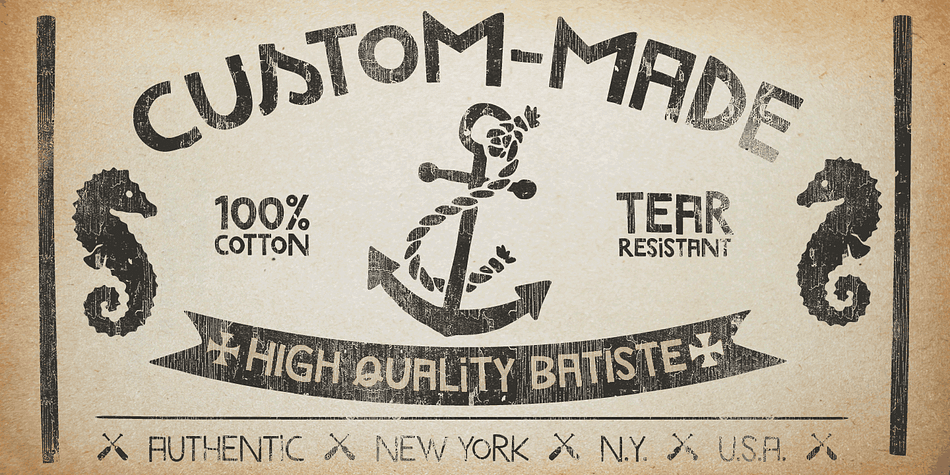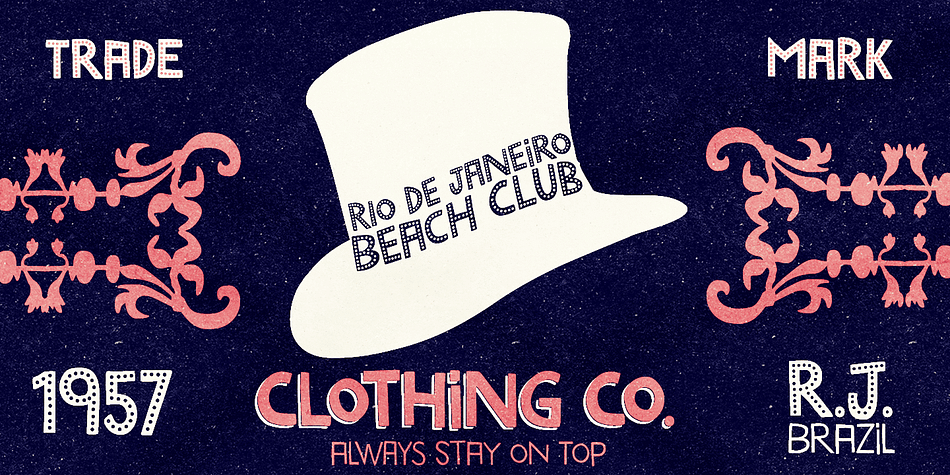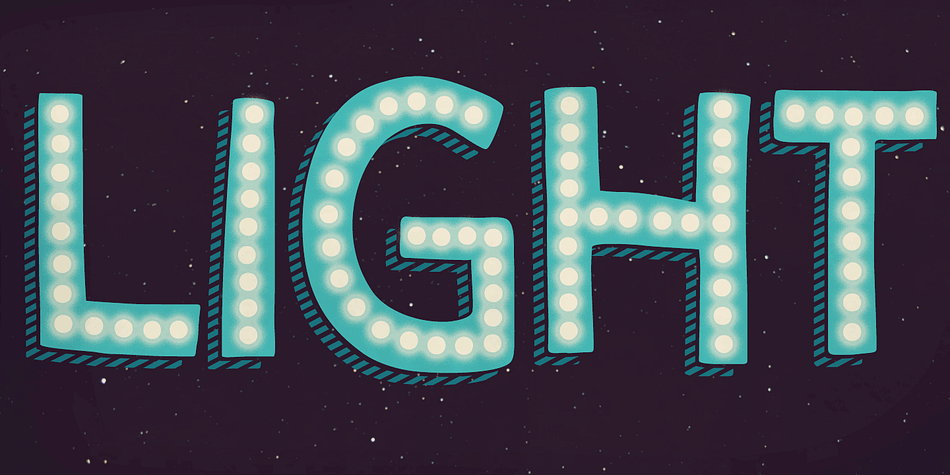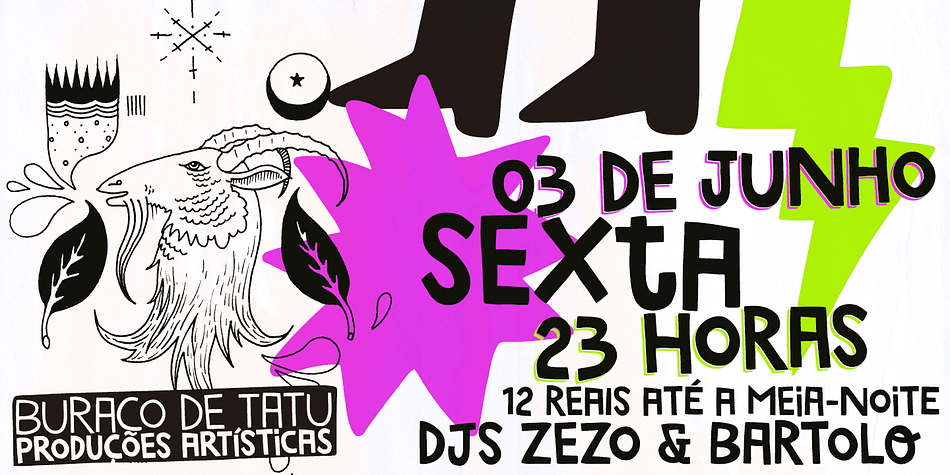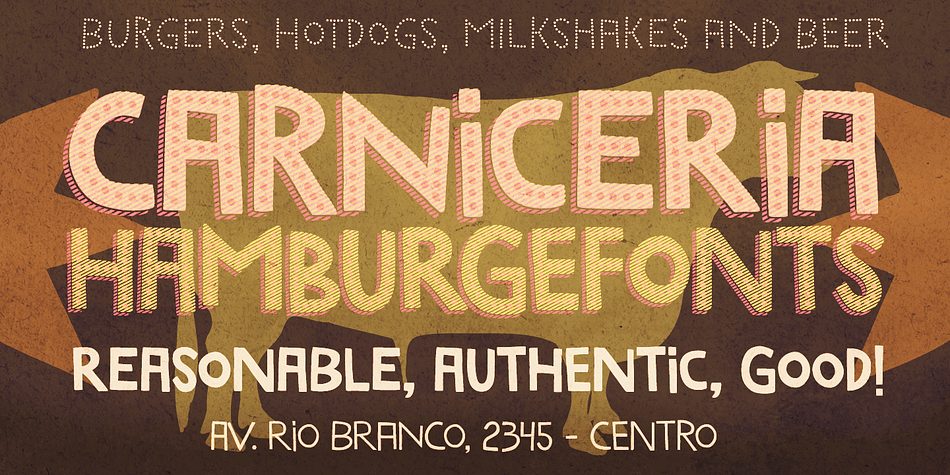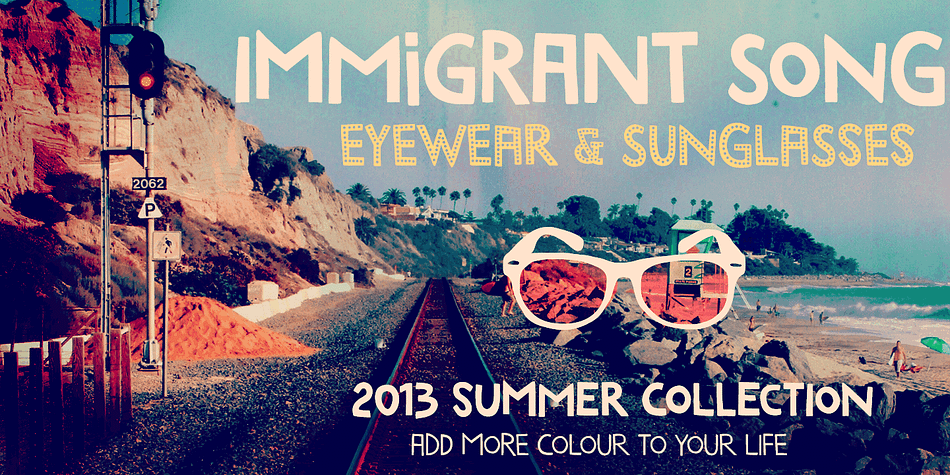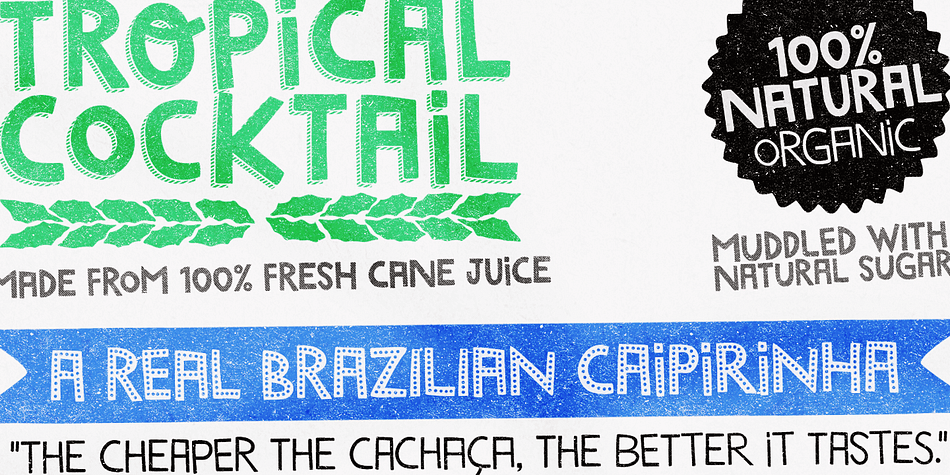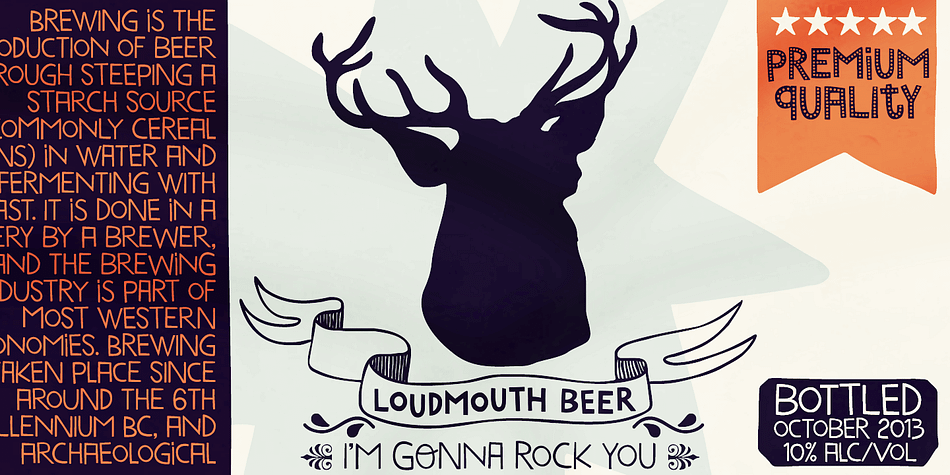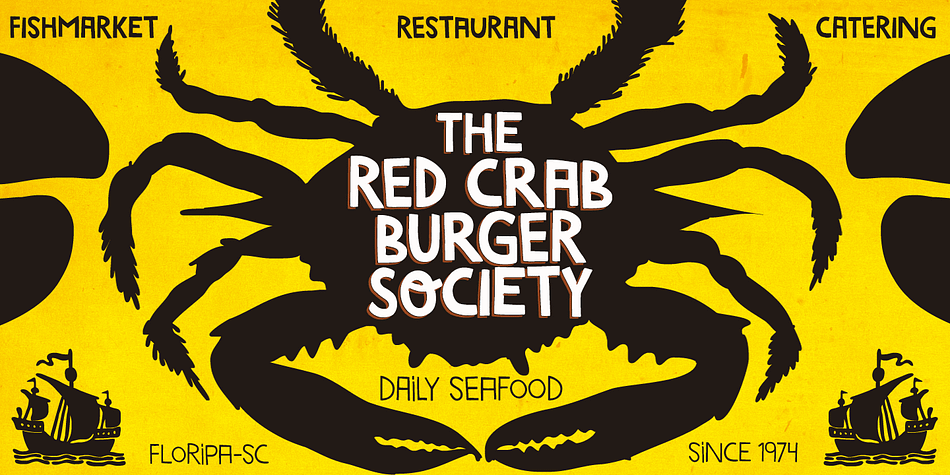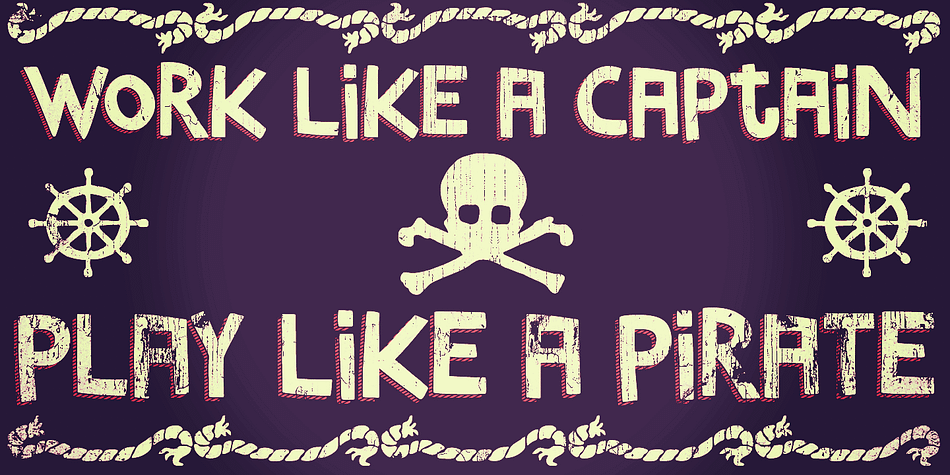
Marujo is a hand display, kids and dingbat font family. This typeface has eight styles and was published by PintassilgoPrints.
Marujo is a highly decorative typeface inspired by painted pieces of Arthur Bispo do Rosario, a striking Brazilian artist who lived for 50 years in a psychiatric institution.
Besides its spirited Regular and Light cuts, Marujo family brings nifty eye-catching variations adorned with dots and stripes. It also brings complementary fonts to spice things up even more: there are 2 shadow options and yet a picture font packed with doodles, mostly on nautical subjects (which are strongly present on Bispo do Rosario, a former seaman apprentice.)
Bispo do Rosario’s works employs a multitude of materials and are often very intricate. Words are everywhere, painted or embroidered at most. He produced a vast amount of works, and is now - posthumously - widely recognized in Brazilian art scene. The psychiatric institution in which he lived is now a museum dedicated exclusively to his work.
Marujo draws inspiration not only from Bispo’s works, but also from this man’s potency, a persistent man who produced amazing art locked in such a tough environment for a life-long.
Marujo fonts are positively adventurous and will safely navigate through a sea of feelings, reaching free spirits everywhere. To navigate is precise…